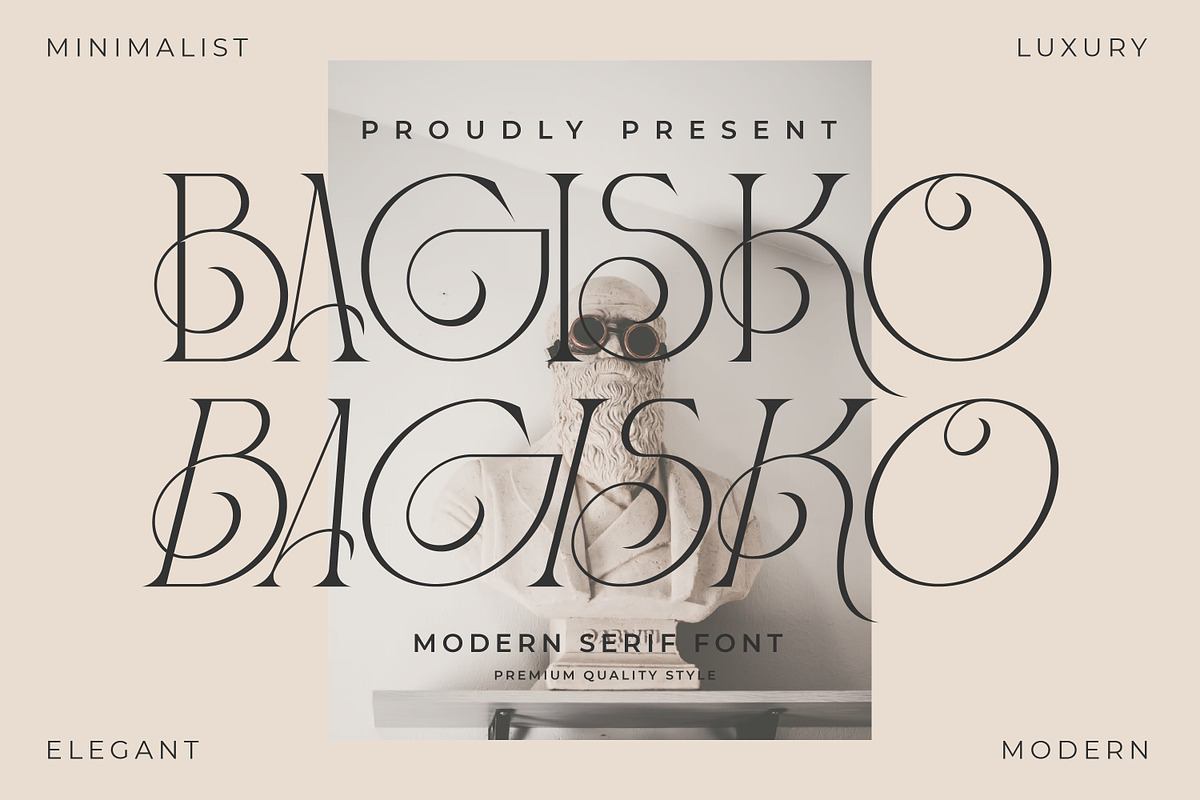
BAGISKO Modern Serif Font Free Download
BAGISKO Modern Serif Font Free Download is a sophisticated and contemporary serif typeface designed with elegance and clarity in mind. Featuring high contrast letterforms and sharp serifs, this font brings a timeless, professional feel to your designs. It is perfect for branding, editorial layouts, product packaging, and any design project that requires a touch of modern luxury.
Using the BAGISKO Modern Serif Font Free Download adds refinement and style to your typography. Whether you’re designing a sleek logo, crafting a sophisticated website layout, or working on marketing materials, this font ensures your designs have a polished and high-end look.